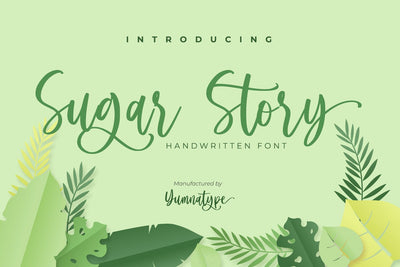
Sugar Story-Sweet Handwritten Font
Sugar Story is a sweet handwritten font with a natural and unique design will make your project more beautiful. The font is suitable for your branding project, printing, logos dan wedding.
- Beautiful Ligatures